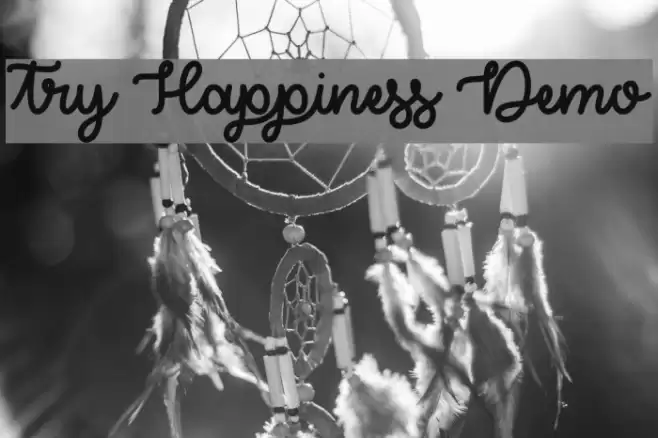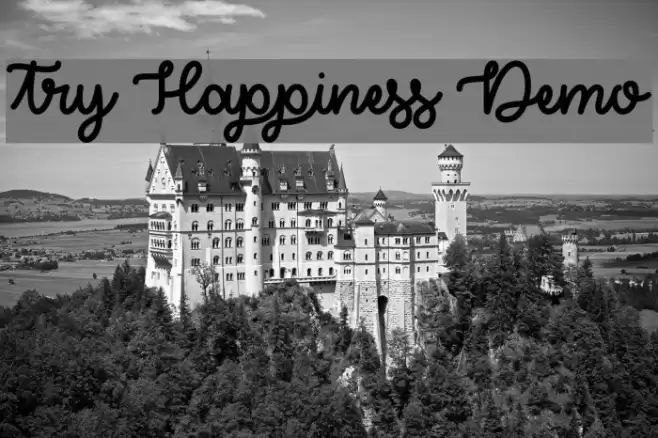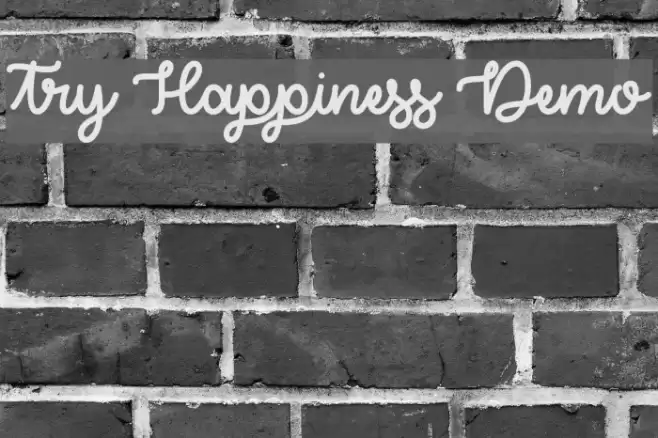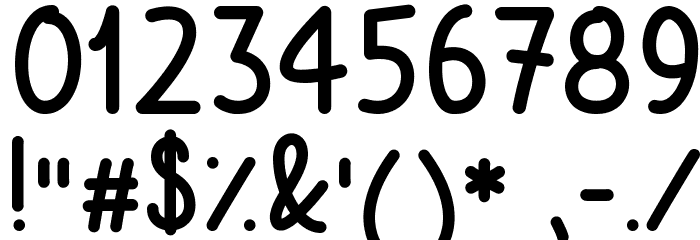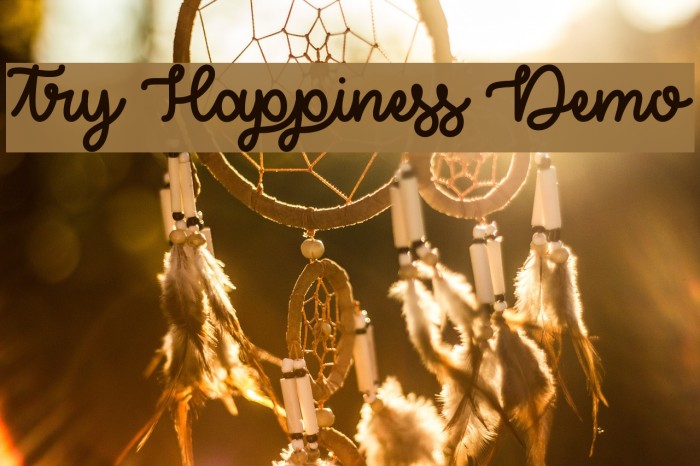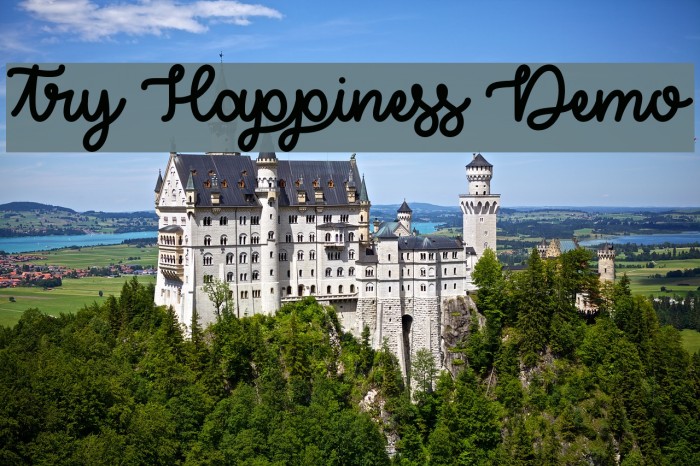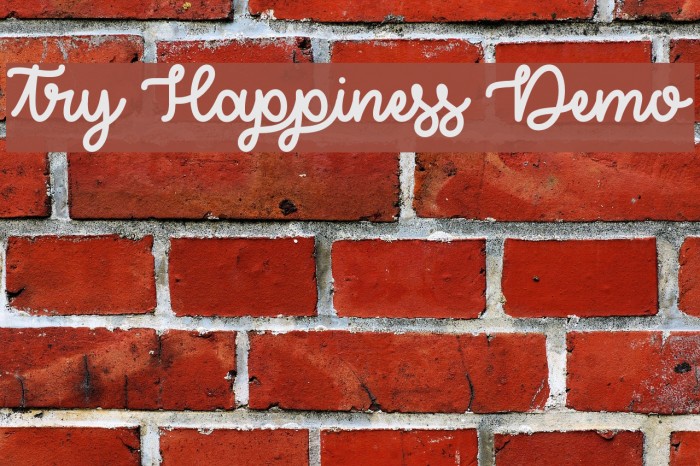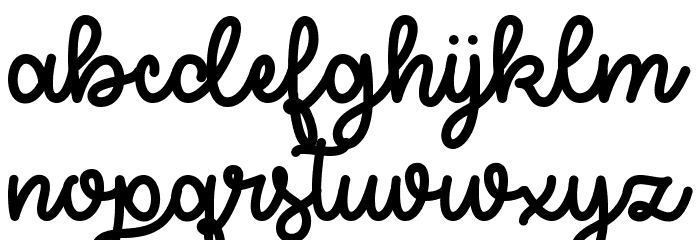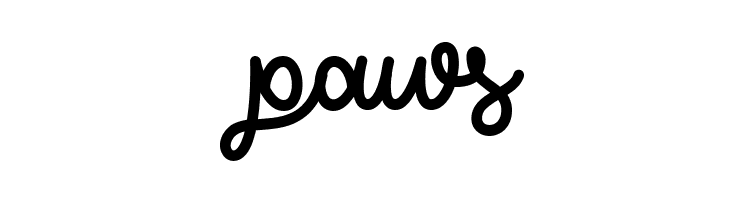
Try Happiness Demo Font
Try Happiness Demo Description
This font features a playful and whimsical script style with a handwritten appearance. The letters are connected, creating a flowing and continuous look that adds a sense of movement and energy. The uppercase and lowercase letters maintain a consistent style, with rounded edges and a slightly bold weight that enhances readability. The numbers and special characters are designed to match the overall aesthetic, ensuring a cohesive look across all text elements. This font exudes a friendly and approachable vibe, making it ideal for projects that aim to convey warmth and creativity.
A playful, handwritten script font with a whimsical and friendly style from Uncategorized fonts.
- Proposed Projects: Ideal for greeting cards, invitations, playful branding, and social media graphics.
- Overall Style: Playful
- Use Case: Headlines, Logos, Invitations